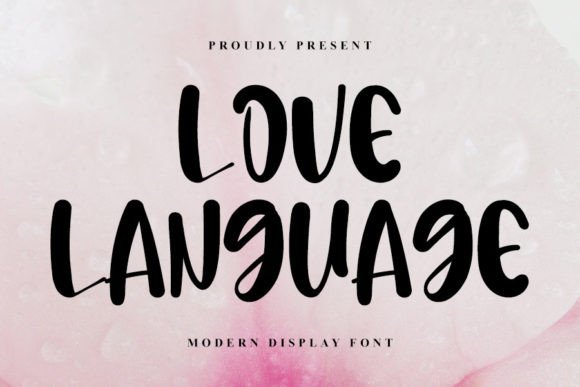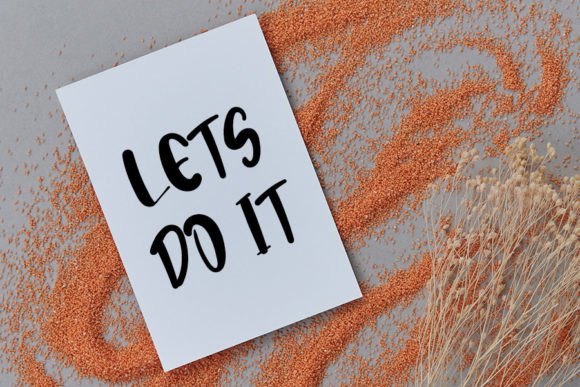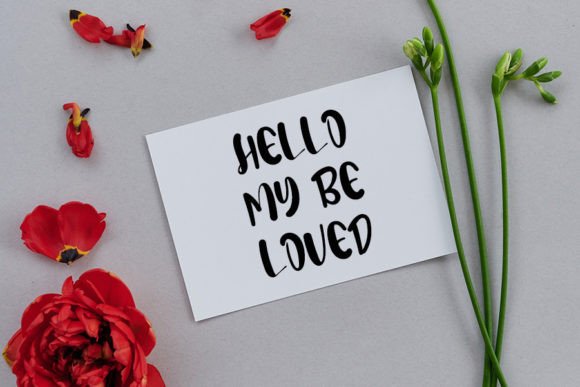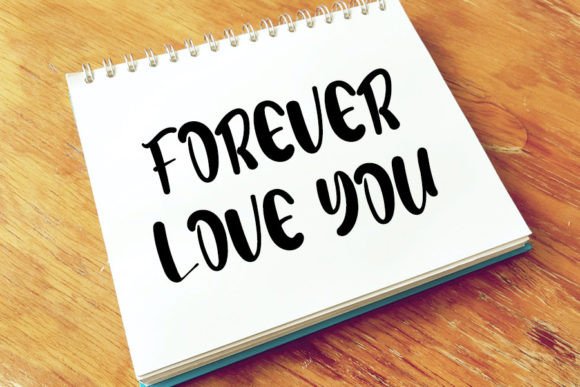
Love Language Font
The Love Language Font Download is a beautiful handwritten script that brings elegance, warmth, and sophistication to your designs. With graceful curves and balanced strokes, it combines timeless charm with modern appeal. Whether you’re working on invitations, posters, or branding, Love Language ensures your projects look polished and full of character.
A Handwritten Script with Elegant Style
The Love Language script font merges calligraphic influence with smooth handwritten rhythm. As a result, it feels stylish, graceful, and highly versatile. Furthermore, it adapts seamlessly to both delicate stationery and bold design layouts, making it a reliable choice for creatives.
Handwritten fonts add personality and intimacy to personal stationery. The Love Language Font is perfect for wedding invitations, thank you cards, birthday notes, and seasonal greetings. Because of its flowing handwritten beauty, every piece feels heartfelt and professional. In addition, it ensures your cards create lasting memories.
Branding and Logo Design with Love Language Font
Typography plays a key role in shaping a brand’s identity. The Love Language handwritten font is excellent for boutique logos, product packaging, and promotional materials. Its stylish handwritten form creates an approachable yet elegant image. Therefore, it works especially well for lifestyle, fashion, and creative businesses.
Posters, Titles, and Editorial Layouts
The Love Language Font Download also shines in posters, magazines, banners, and book covers. It maintains readability across all sizes while adding handwritten charm. Consequently, it is a dependable option for designers who want elegance without losing clarity.
In the fast-paced online world, fonts must be flexible and attractive. The Love Language typeface integrates effortlessly into Instagram posts, Pinterest graphics, YouTube thumbnails, and blogs. Because of its elegant handwritten touch, it ensures your digital projects stand out and look professional.
Why Designers Choose Love Language Typeface
Designers enjoy fonts that balance sophistication with usability. The Love Language handwritten script keeps its graceful personality while remaining clear and easy to read. This makes it suitable for professionals and hobbyists alike. Moreover, its timeless appeal guarantees it stays relevant for years to come.
Add Elegance and Warmth to Your Projects Today
If you want a handwritten script that feels elegant, stylish, and versatile, the Love Language Font Download is the perfect choice. From invitations and cards to posters, branding, and social media, it enriches every project with timeless handwritten beauty. Finally, download Love Language today and let your designs shine with elegance and charm.